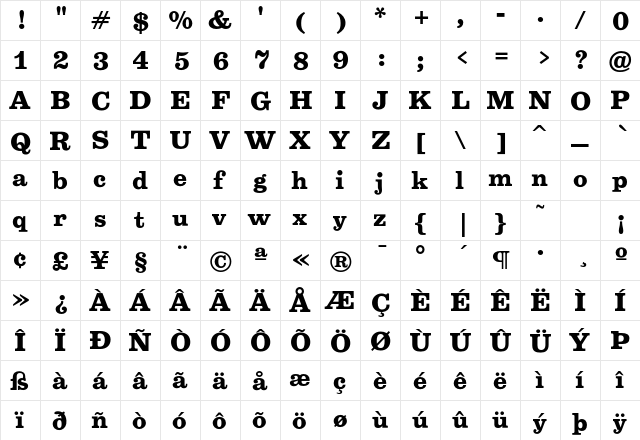
Belizio FB Bold Regular
Design Context for Belizio FB Bold Typeface
Belizio FB Bold is a composed and adaptable typeface that performs quietly and consistently across a wide range of design contexts. Its bold stroke weight gives it real presence on the page.